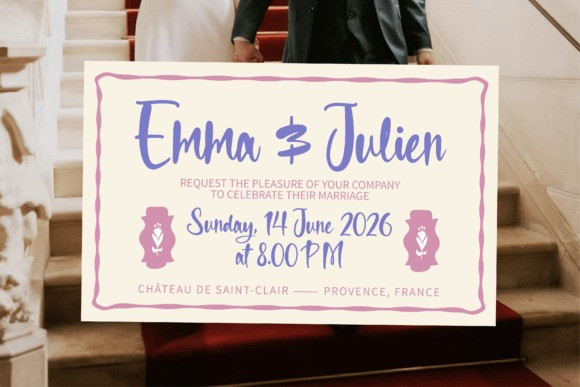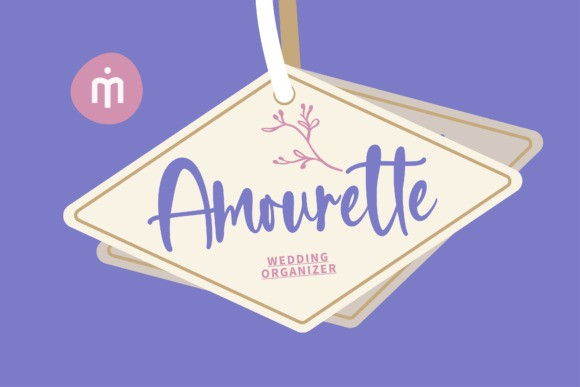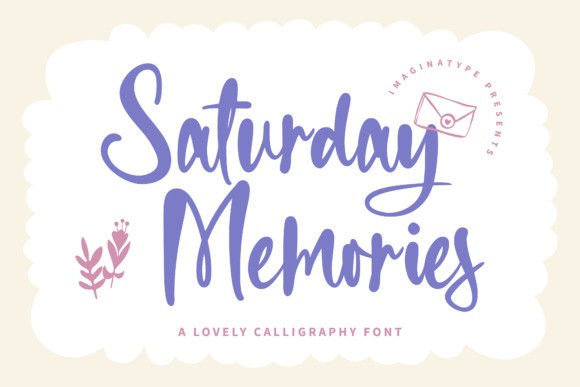
Saturday Memories Font
Saturday Memories Font a slow weekend morning with Saturday Memories. This isn’t just another script, it’s a total mood. With its bouncy rhythm and organic, hand-inked feel, this font brings that perfectly “imperfect” touch to your designs that feels both high-end and super approachable. It’s sweet, a little bit whimsical, and carries enough personality to make your words practically dance off the screen.
Whether you’re dreaming up dreamy wedding stationery, building a brand that feels like a warm hug, or just need that perfect “handwritten” look for your Sunday morning Instagram quotes, Saturday Memories is your new go-to. It’s designed to look effortless, fluid, and oh-so-lovely, making it the ultimate tool for creatives who want their work to feel deeply personal and full of heart.